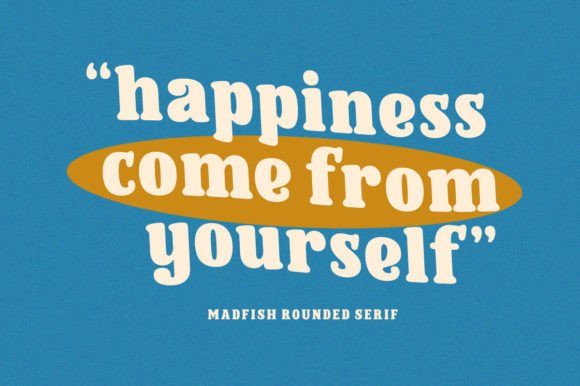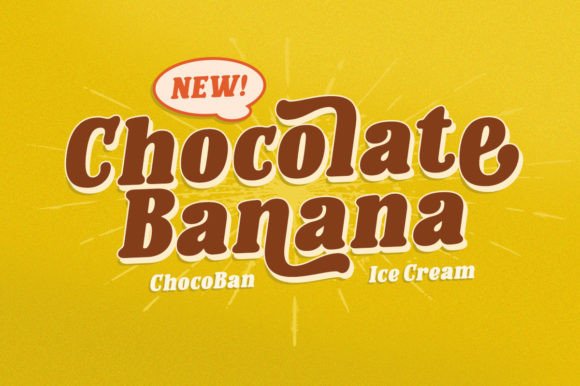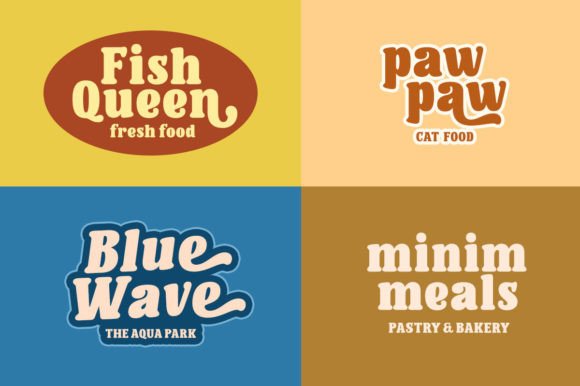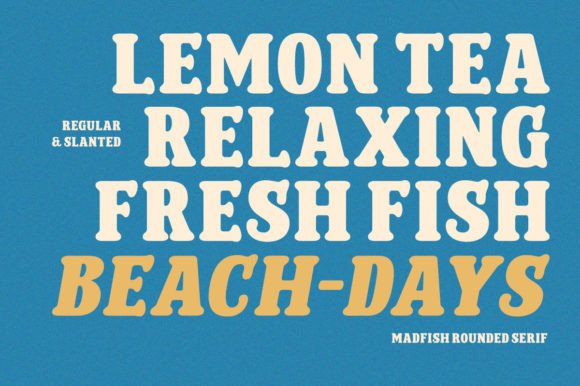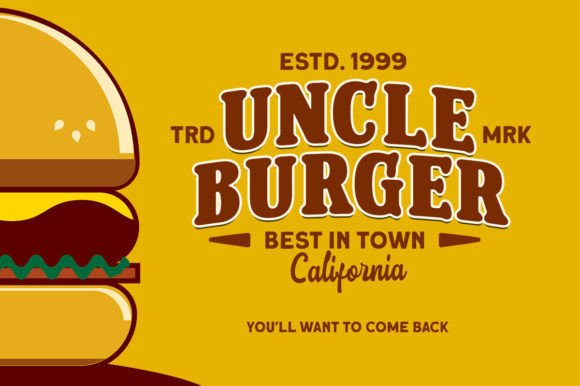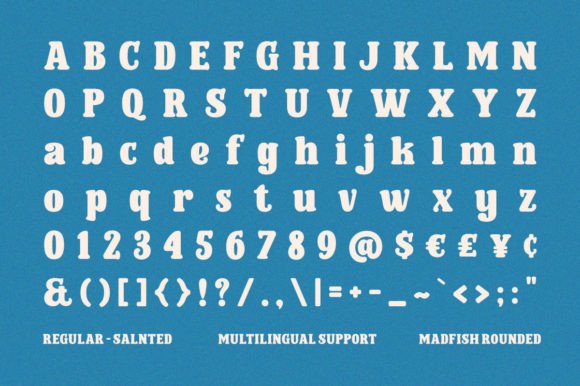
Introduction to Madfish Typeface Font
Have you ever been working on a creative project and struggled to find the perfect font to bring your vision to life? I know I have. There’s nothing quite like the feeling of finally stumbling upon the perfect design element to elevate your project from good to great. For me, that moment came when I discovered the Madfish Typeface Font. This stunning font boasts a unique combination of rounded serifs and bold strokes, giving it a playful yet sophisticated look that’s perfect for any project.
With its vintage-inspired design, the Madfish Typeface Font adds a touch of timeless elegance to even the most modern of designs. Whether you’re working on a branding project, a blog, or just a fun creative endeavor, this font is sure to bring a high level of sophistication and style to your work.
Key Features of Madfish Typeface Font
- High-quality, vector-based font design for crisp and clear typography in any creative project.
- Includes a comprehensive character set, covering a wide range of languages and alphabets, making it suitable for diverse creative projects.
- Designed with a modern and stylish aesthetic, perfect for adding a touch of sophistication to any design or creative project.
Honest Review: Madfish Typeface Font
I recently had the chance to work with the Madfish Typeface Font, and I must say, it’s a game-changer for any creative project that requires a high-quality, unique font.
Some of the notable features of the Madfish Typeface Font include:
- Its versatility in various design contexts, from logos to branding materials
- Its elegant and modern aesthetic that adds a touch of sophistication to any design project
- Its high-resolution design that looks great in both print and digital formats
However, I did encounter a few limitations: ⚠️ The font’s limited character set may not be suitable for projects that require a wide range of characters, and ⚠️ The font’s complexity can make it challenging to customize for certain design applications.
Overall, I’m impressed with the Madfish Typeface Font and would highly recommend it to anyone looking for a unique and high-quality design resource for their creative project.
The Madfish Typeface Font is a high-quality design resource perfect for creative projects. With its unique style and transparent background, it’s ideal for designers looking to add a touch of sophistication to their work.
Tips for Getting the Most Out of Madfish Typeface Font
To get the most out of the Madfish Typeface Font, experiment with different font sizes, colors, and combinations to create unique and eye-catching designs.
The Madfish Typeface Font is ideal for a variety of creative projects, including:
- Print and digital advertising
- Social media graphics and presentations
- Website design and development